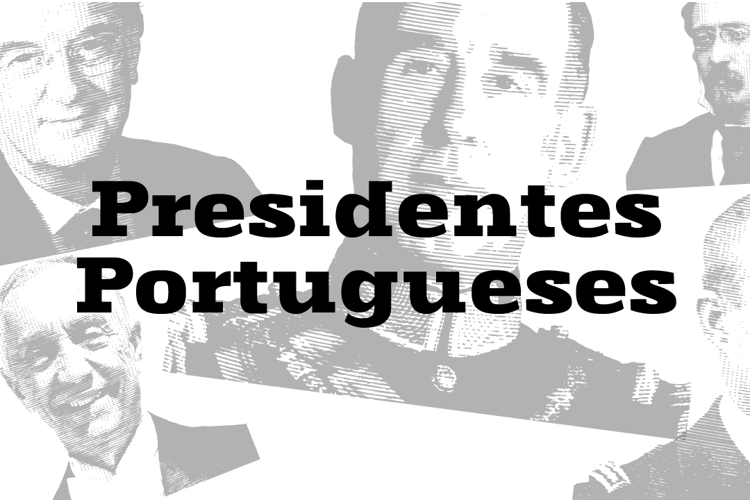
Presidentes Portugueses Font
This is a list of presidents of the Portuguese Republic,
ordered chronologically from the establishment of the republican
form of government on October 5, 1910 to the present.
This work was built upon original images from this page: